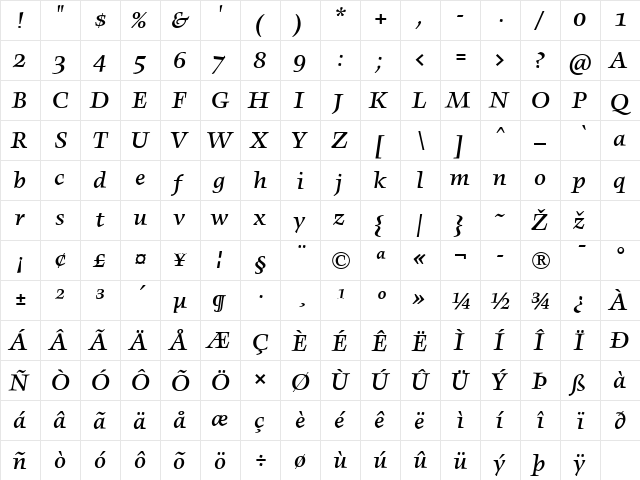
Angkoon-MediumItalic Regular Font Preview
Angkoon-MediumItalic Regular
Angkoon-MediumItalic Regular Font Details
| Foundry | Xavier Dupre, published by FontShop International for the FontFont Library |
| Designer | Xavier Dupre |
Design Context for Angkoon-MediumItalic Typeface
Angkoon-MediumItalic is a composed and adaptable typeface that performs quietly and consistently across a wide range of design contexts. The dynamic lean of this cut emphasises speed and emphasis in any layout.
Pro Tip: Use Angkoon-MediumItalic for emphasis, pull quotes, and subheadings where its slanted energy can add rhythm to the layout.